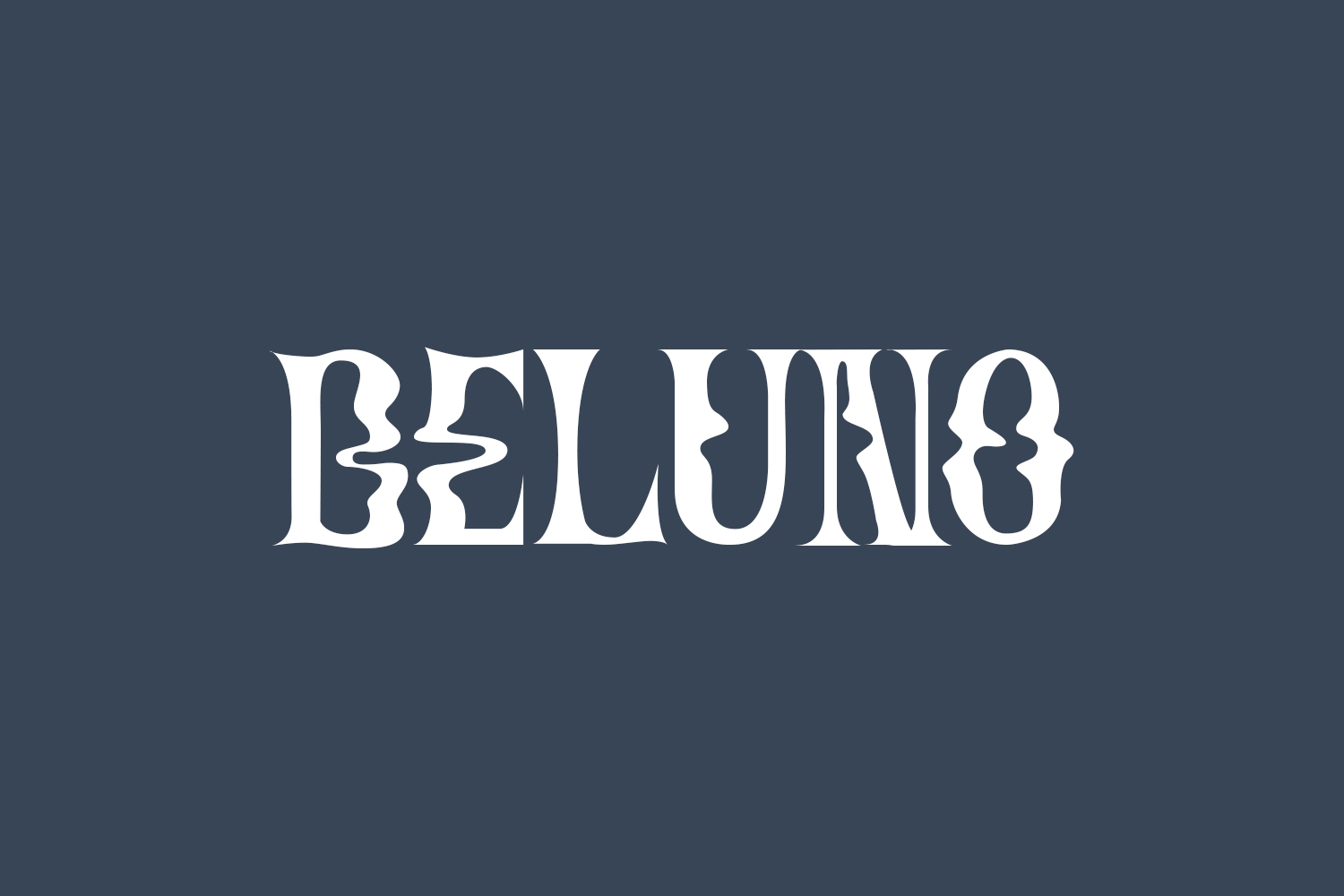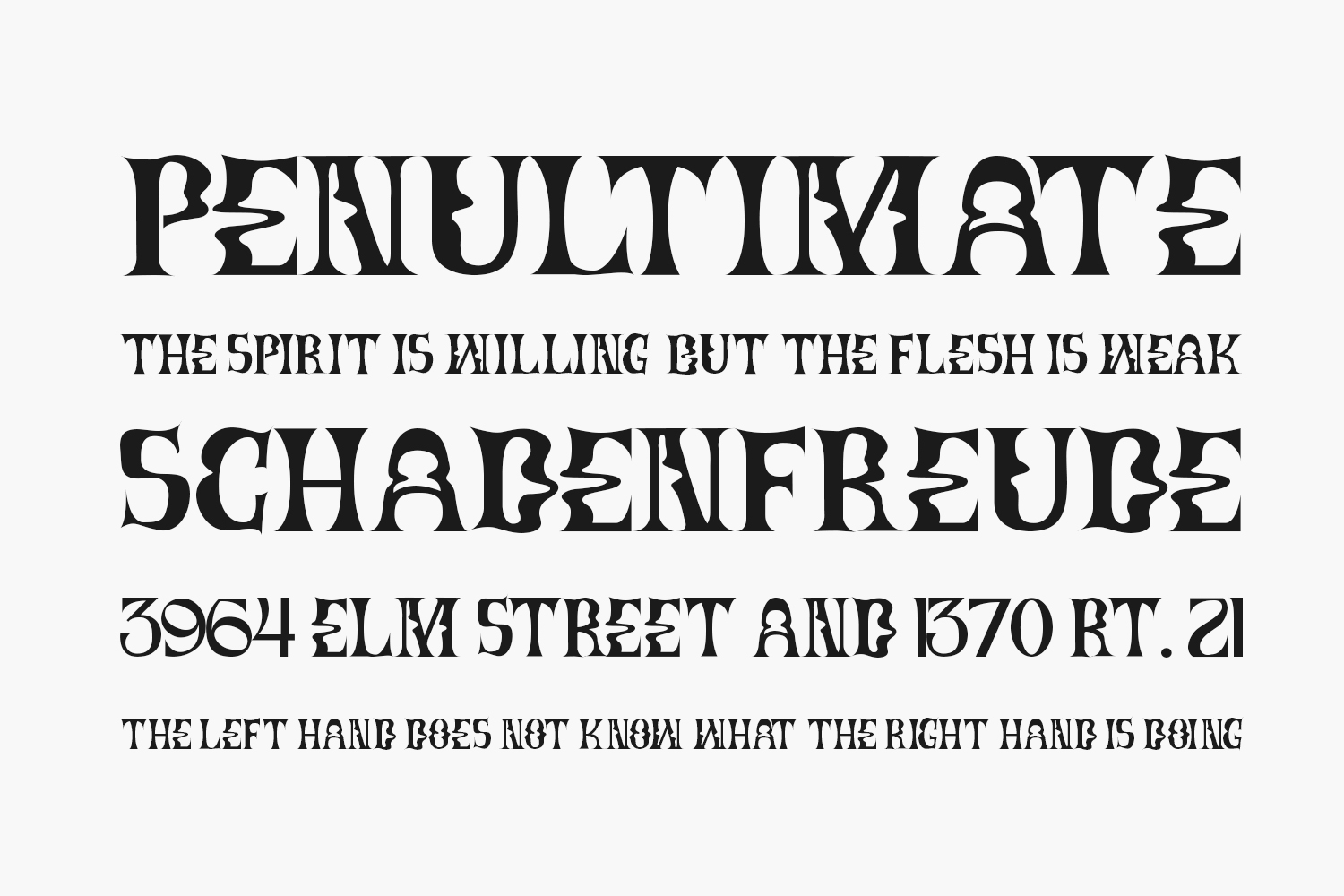
Beluno Free Font exudes groovy charm with its bold and playful serif typeface, evoking retro vibes that inject fun into any project. Unleash your creativity and craft something truly spectacular with Beluno as your creative companion. Download the font for free if you need it for personal use or purchase the full version for commercial use.